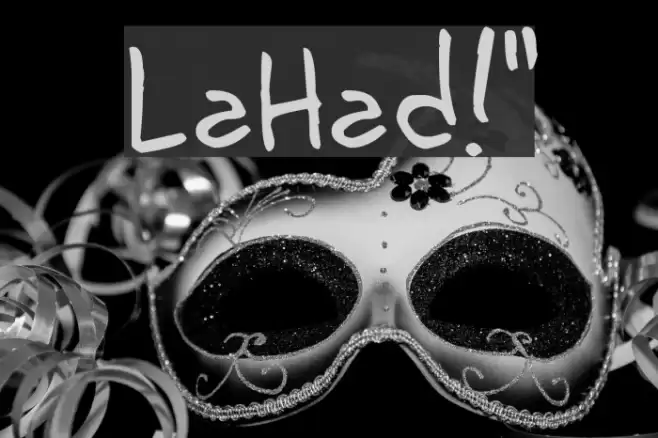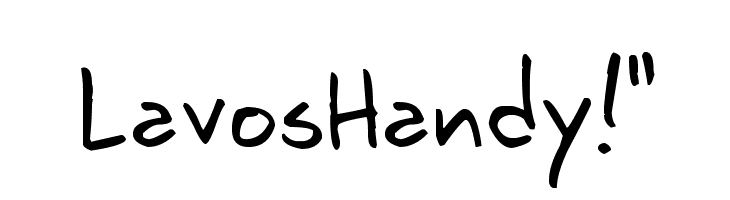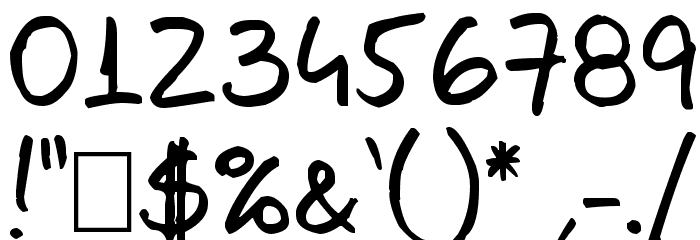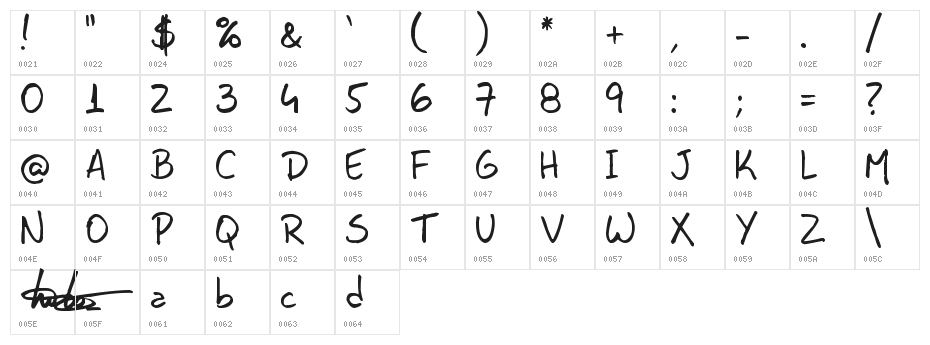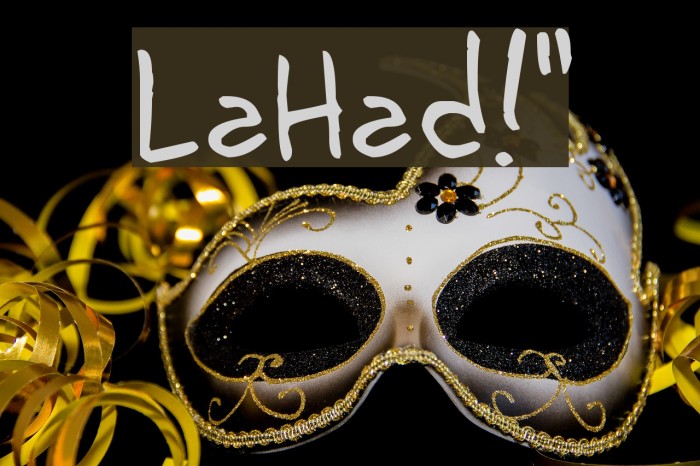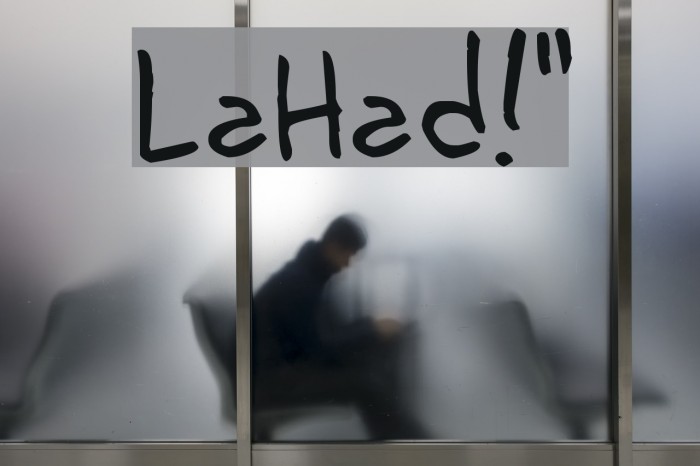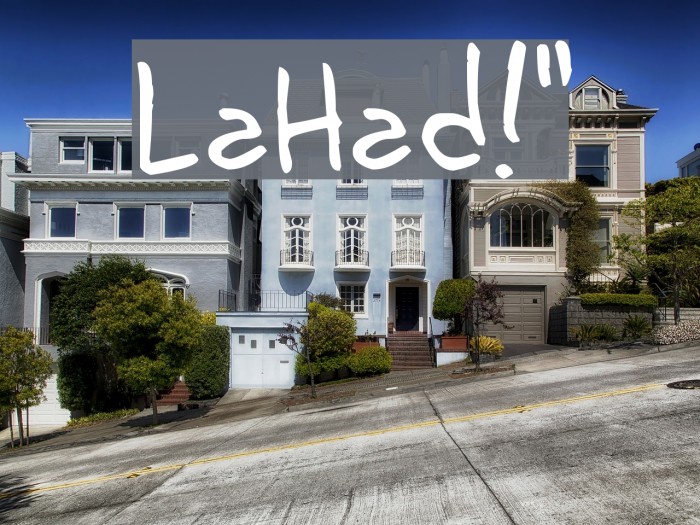
LavosHandy!" Font
LavosHandy!" Description
This font features a playful, handwritten style with a casual and informal appearance. The letters are slightly irregular, mimicking the natural flow of handwriting. The strokes are consistent in width, providing a uniform look across all characters. Uppercase and lowercase letters maintain a cohesive style, with rounded edges and a slight tilt that adds to the font's charm. The numbers and special characters follow the same design principles, ensuring a harmonious overall appearance. This font is ideal for projects that require a personal touch or a friendly, approachable aesthetic.
A playful, handwritten font with a casual and informal style from Handwritten fonts.
- Proposed Projects: Ideal for greeting cards, personal notes, informal invitations, and creative projects that require a personal touch.
- Overall Style: Casual, Playful
- Use Case: Logos, Headlines, Informal Text